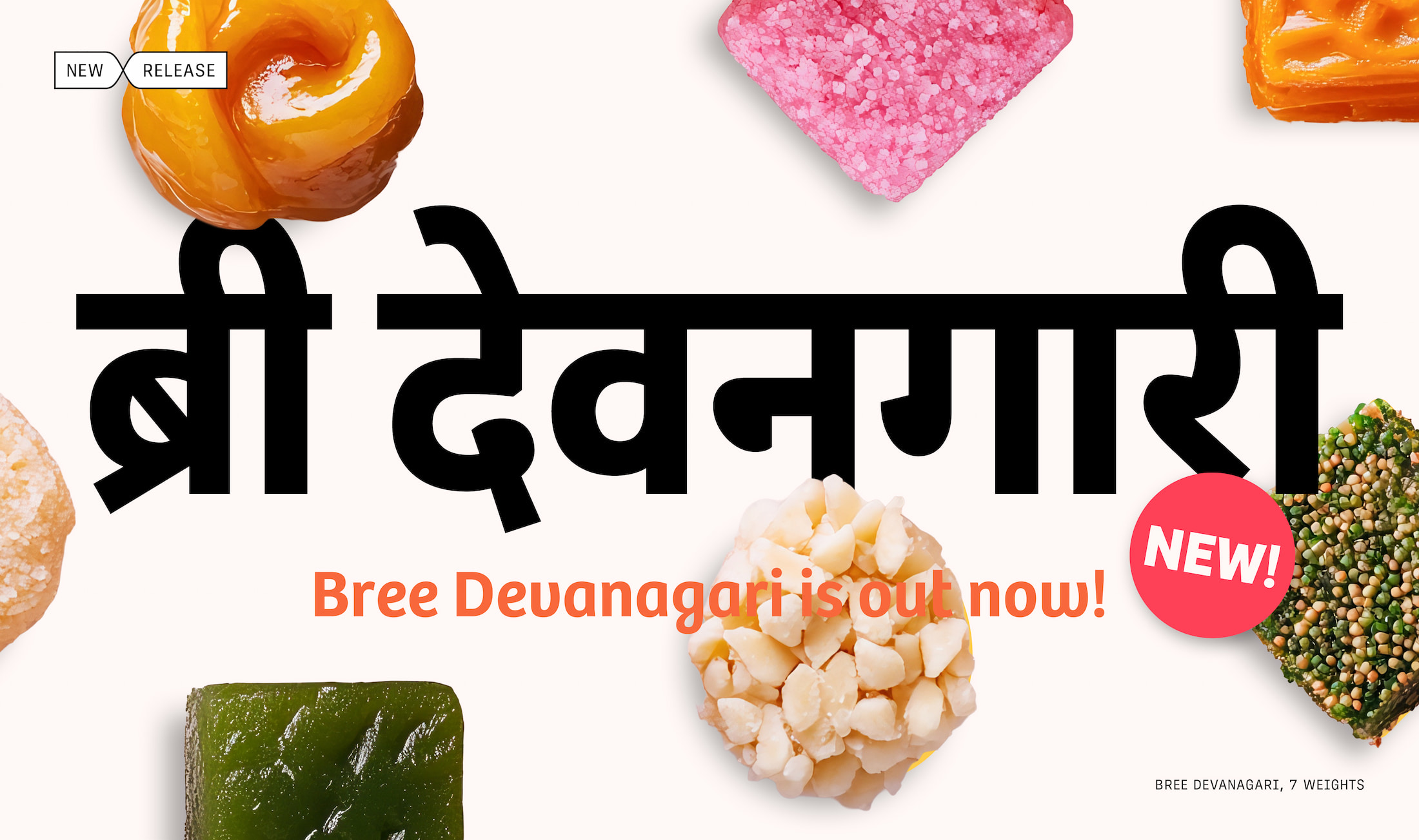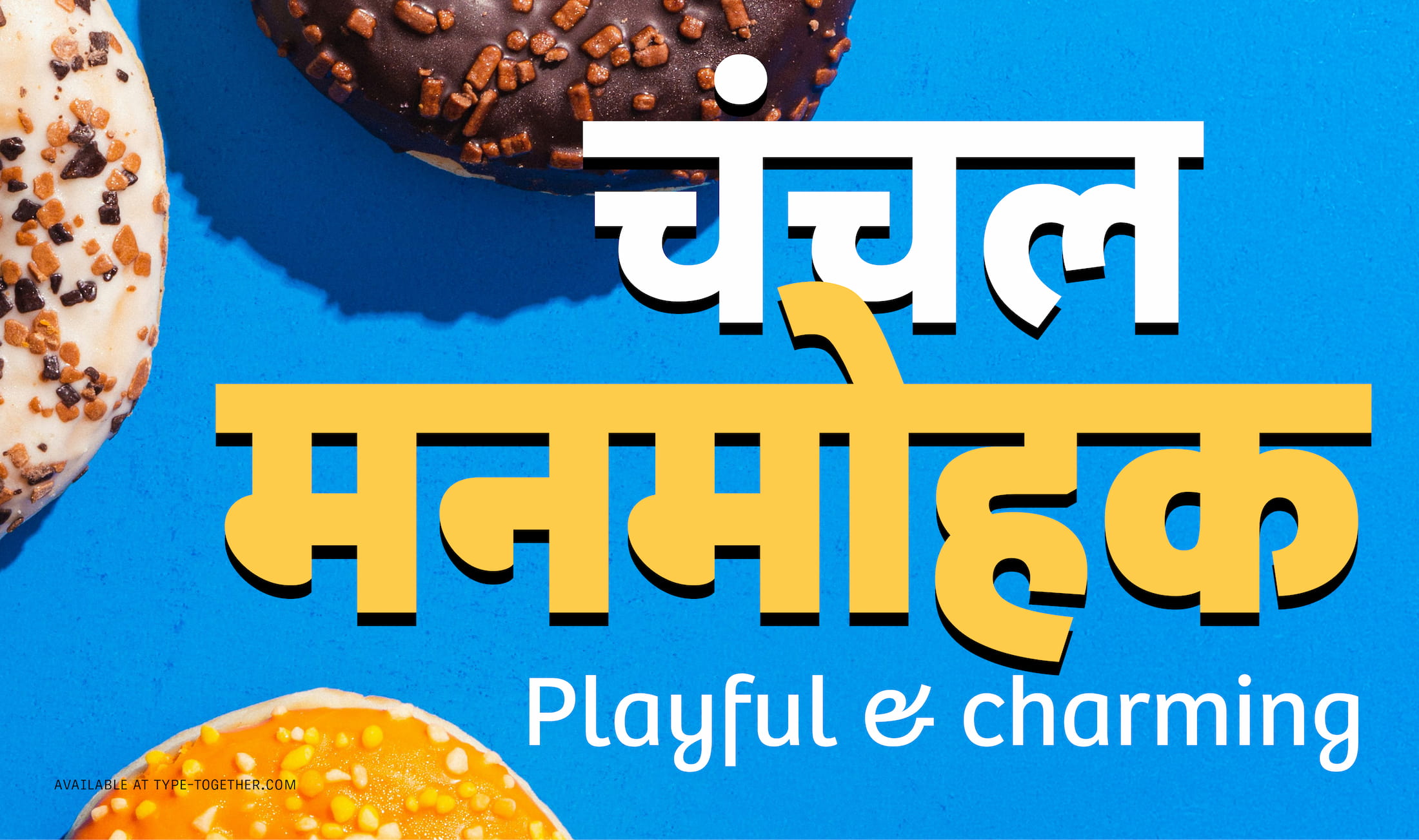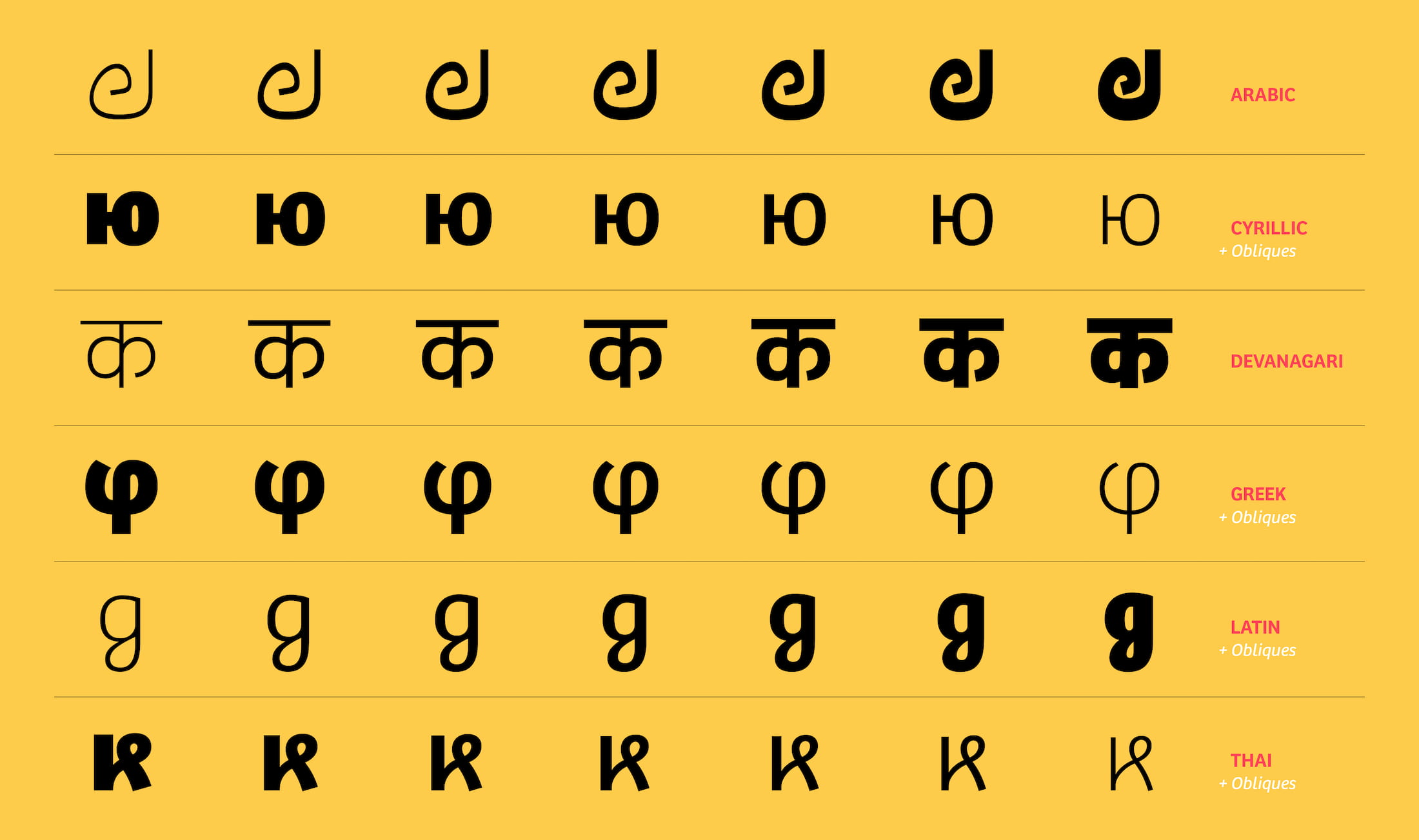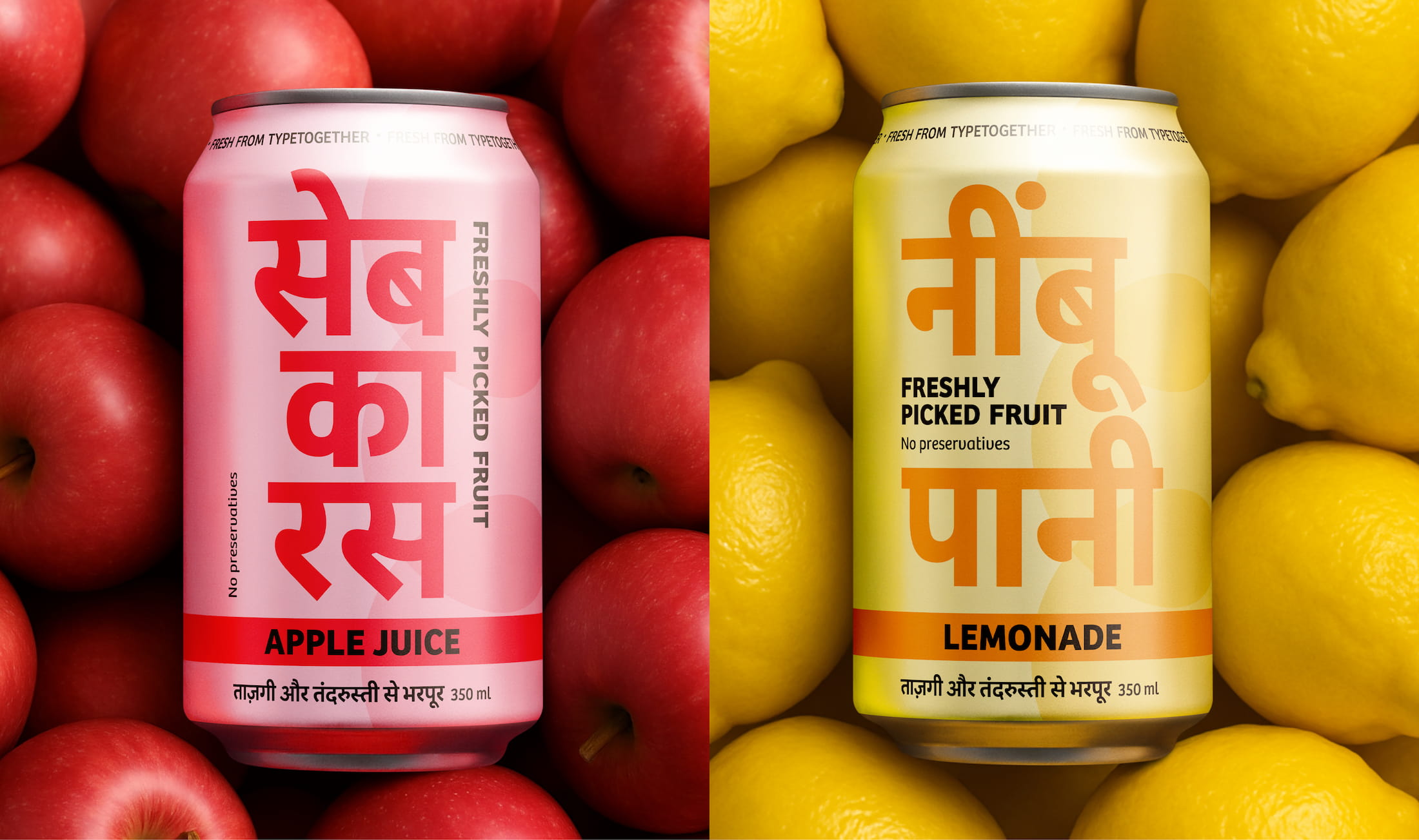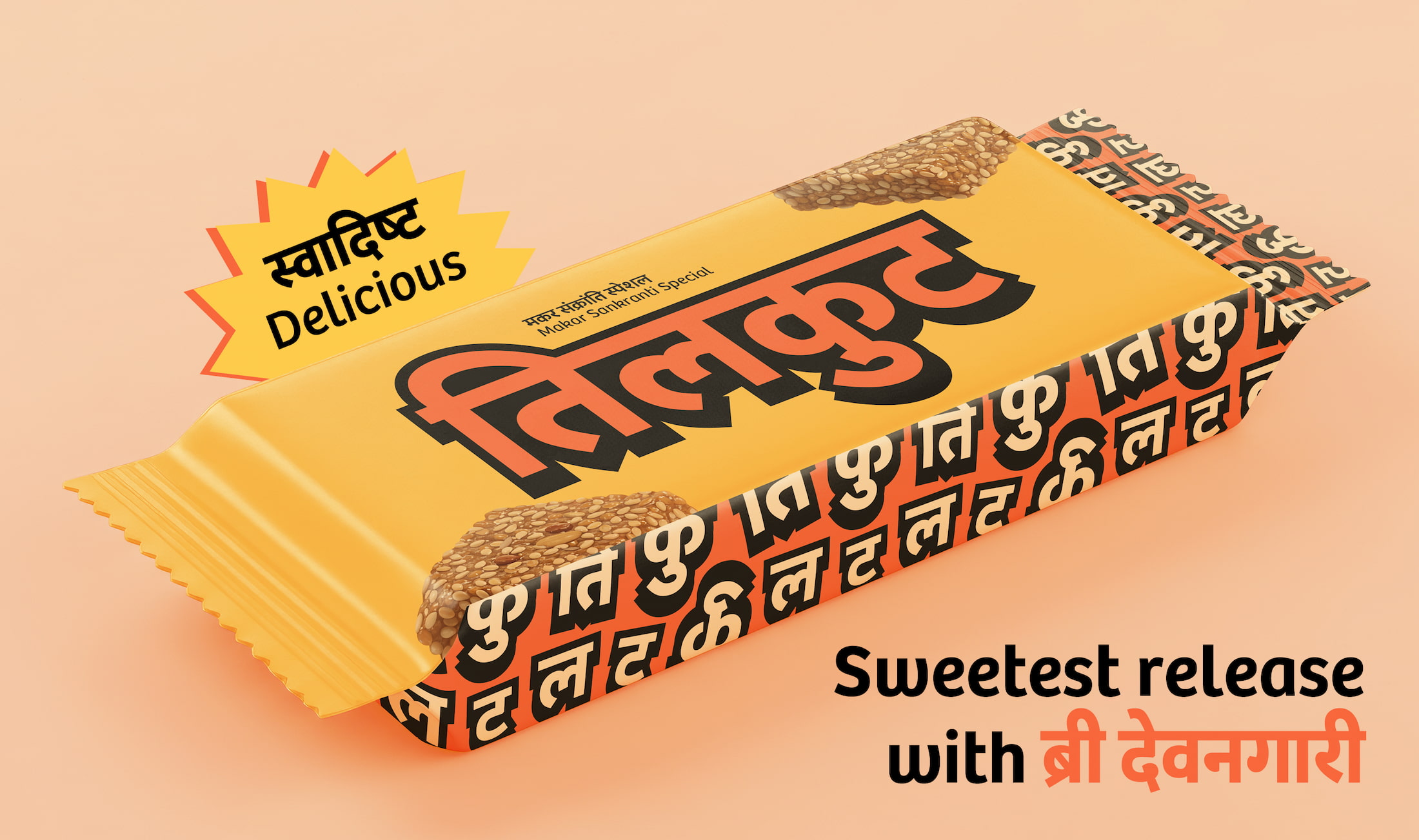
With Bree Devanagari, life just got sweeter
Bree is one of our most popular typefaces. Now Bree Devanagari carries its exuberant tone into India’s most widely-used script. Bree Devanagari is perfect for branding and headlines, with a text weight that is a pleasure to read in longer settings.
A team of designers led by the type designer and author Pooja Saxena have seen to it that Bree Devanagari will be a game changer for graphic designers, ad agencies, and branding studios. Its warm, memorable charm shines in crafting standout logos, eye-catching packaging, and bold signage for brands that connect emotionally and build communities. Bree Devanagari’s space-saving proportions across all weights work brilliantly for headlines in mobile apps, newspapers, and digital magazines, where every pixel counts but that signature personality stays front and centre.